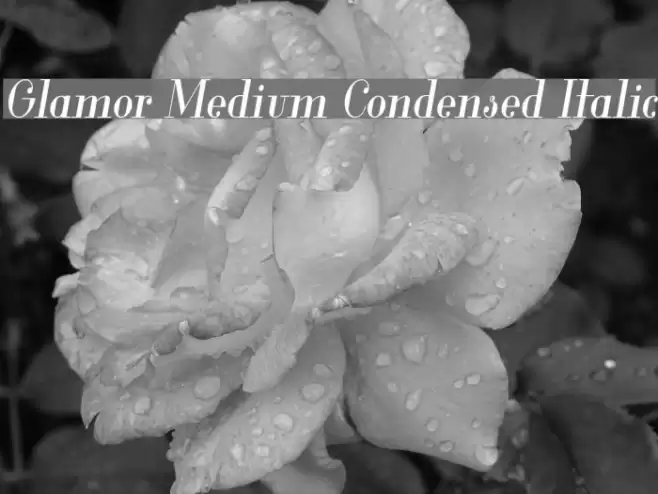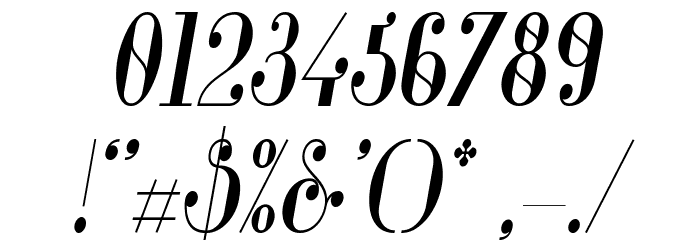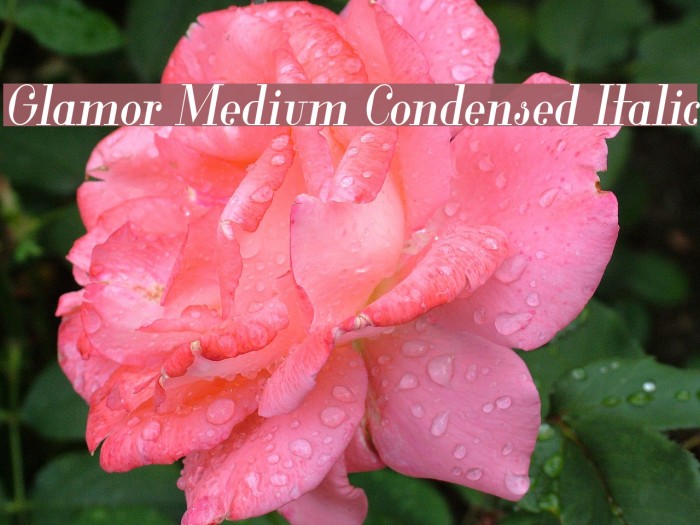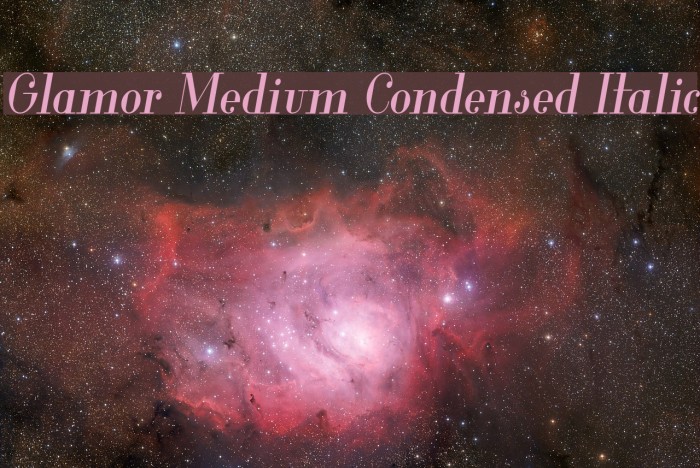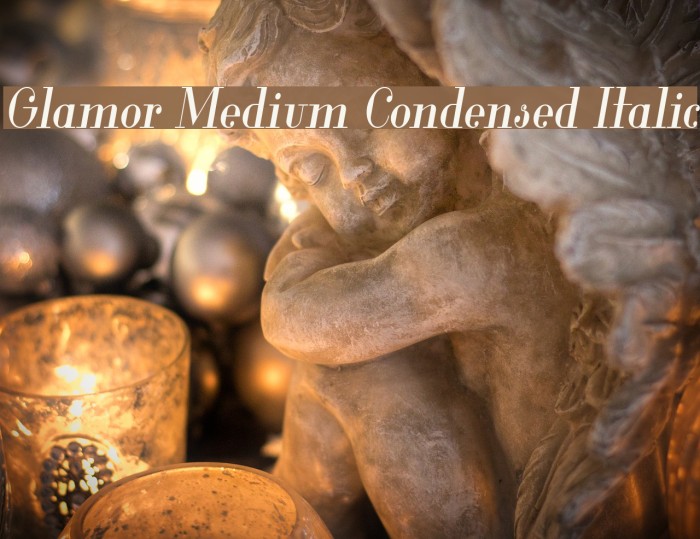
Glamor Medium Condensed Italic Font
Glamor Medium Condensed Italic Description
This font exhibits a sophisticated and elegant style with a condensed and italicized form. The characters are slender and elongated, giving a refined and stylish appearance. The uppercase letters have a distinctive flair, with subtle curves and sharp serifs that add a touch of class. The lowercase letters maintain a consistent flow, enhancing readability while retaining the font's unique charm. Numerals are well-proportioned, aligning seamlessly with the overall aesthetic. Special characters are thoughtfully designed, complementing the font's elegant nature. This typeface is perfect for projects that require a touch of sophistication and modern elegance.
A sophisticated, condensed italic font with elegant serifs and refined style from Serif fonts.
- Proposed Projects: Ideal for luxury branding, fashion magazines, wedding invitations, and high-end product packaging.